Typography plays a crucial role in marketing. In fact, choosing the best fonts for business advertising can significantly influence how customers perceive your brand. The right font not only makes advertisements more attractive but also strengthens brand recognition and credibility.
When people see an advertisement, whether it’s a website banner, social media post, billboard, or product packaging, the typography immediately communicates a message about the brand. A clean, modern font can convey professionalism, while a bold display font can create excitement and energy.
Understanding how to select the best fonts for business advertising helps businesses create marketing materials that are visually appealing, memorable, and effective.
In this guide, we will explore some of the best fonts used in advertising and provide tips on how to choose typography that supports a strong brand identity.
Why Fonts Matter in Business Advertising
Typography is one of the most powerful visual tools in advertising. It affects how people read, feel, and respond to marketing messages.
Fonts Influence Brand Perception
The font used in advertising can shape how customers view a brand.
For example:
- Elegant fonts suggest luxury and sophistication
- Bold fonts communicate strength and confidence
- Rounded fonts feel friendly and approachable
This is why companies carefully select the best fonts for business advertising that align with their brand identity.
Fonts Improve Message Clarity
Advertising must communicate quickly. A clear, readable font ensures customers can easily understand the message.
If the typography is difficult to read, the advertisement may lose its effectiveness.
Fonts Increase Brand Recognition
Consistent typography helps people recognize a brand instantly. When a business uses the same fonts across its marketing materials, such as websites, social media, and print ads, it builds a strong visual identity.
Characteristics of the Best Fonts for Business Advertising
Before choosing a font for advertising, it is important to understand the qualities that make typography effective.
Readability
The best fonts for business advertising must be easy to read, even from a distance or on small screens. Clear letterforms ensure that marketing messages are quickly understood.
Visual Impact
Advertising fonts should grab attention. Bold, distinctive typography helps advertisements stand out in crowded spaces such as social media feeds or billboards.
Brand Consistency
The font should match the overall personality. For example, a tech startup might use a modern sans-serif font, while a luxury brand may prefer an elegant serif font.
Best Fonts for Business Advertising
1. Flaters
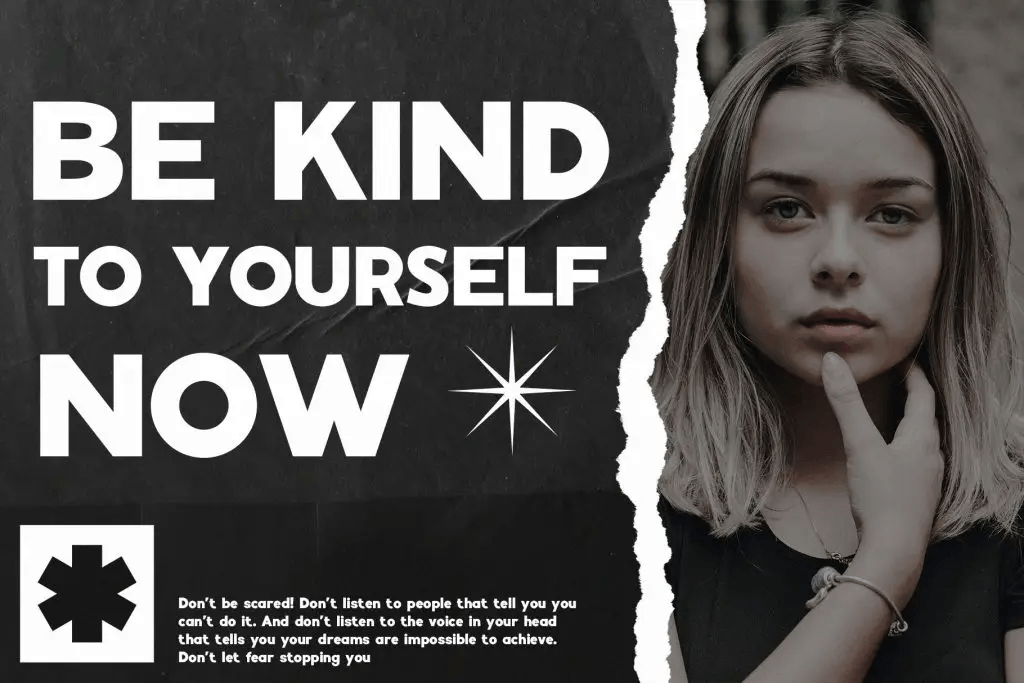
2. Maktron
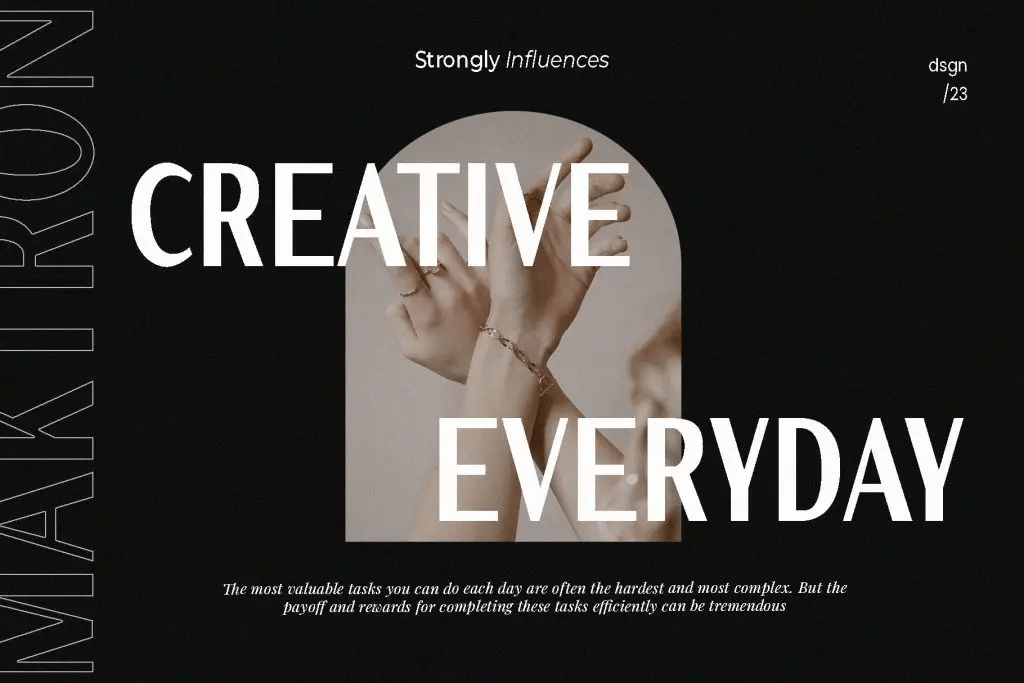
3. Reghita
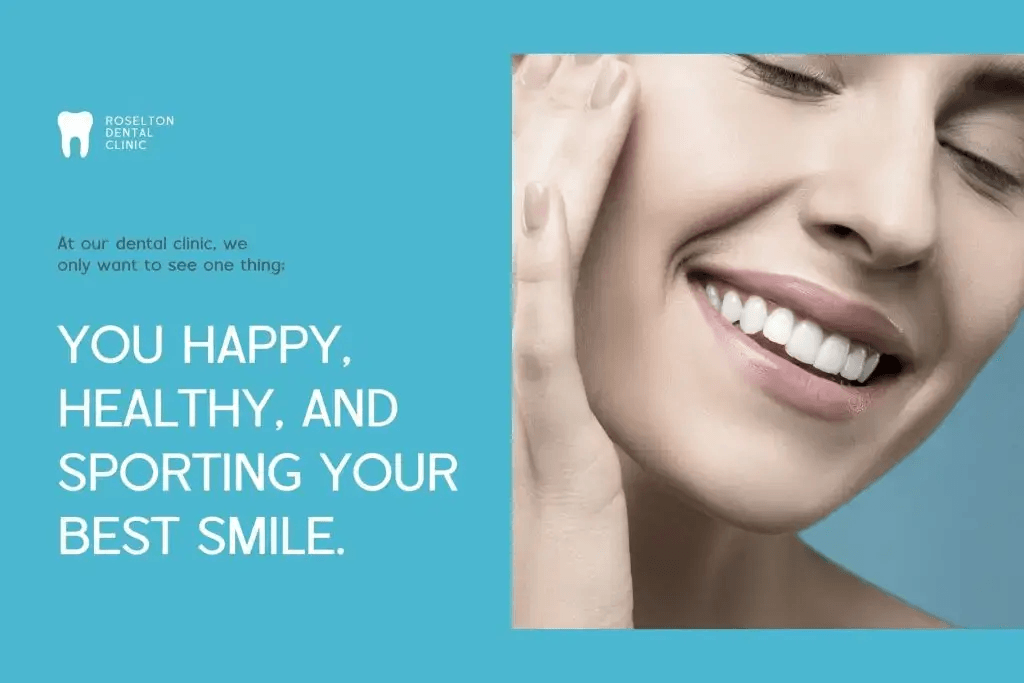
4. Schindler
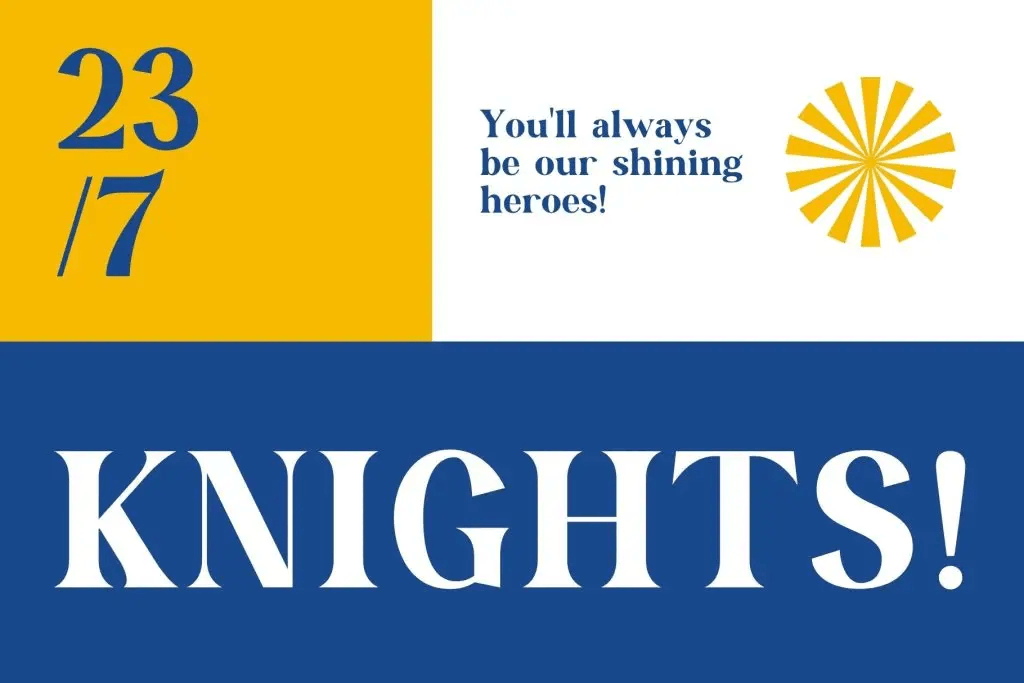
5. Viona Collins
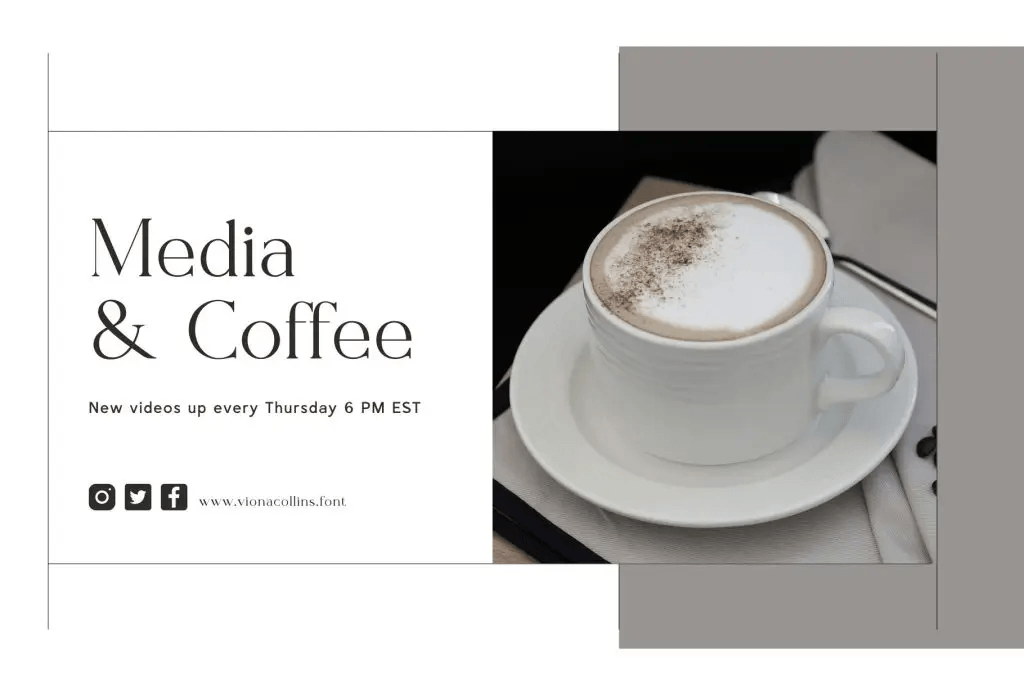
How to Choose the Best Fonts for Business Advertising
Choosing the best fonts for business advertising requires understanding both design principles and marketing goals.
Define Your Brand Personality
Start by identifying the personality of your brand.
Ask yourself:
- Is the brand modern or traditional?
- Is the tone formal or playful?
- Is the product premium or affordable?
The answers will help guide your typography decisions.
Use Font Pairing
Font pairing can create visual contrast and hierarchy in advertisements.
Example pairing:
Heading font → Glibby
Body font → Fagheto
This combination creates a strong visual impact while maintaining readability.
Limit the Number of Fonts
Using too many fonts can make advertisements look cluttered. Most professional advertisements use one or two fonts only. This keeps the design consistent and easy to read.
Consider the Advertising Platform
Different platforms require different typography strategies.
For example:
Social media → bold and eye-catching fonts
Website ads → clean and readable fonts
Print advertising → elegant and distinctive fonts
Always test your typography on the platform where the advertisement will appear.
Final Thoughts
Choosing the best fonts for business advertising is an essential part of building a strong brand identity. Typography influences how customers perceive a brand, understand its message, and remember its visual identity.
Fonts like Flaters, Maktron, Reghita, Schindler, and Viona Collins are widely used in advertising because they combine readability with strong visual impact.
When selecting fonts for advertising, always consider readability, brand personality, and platform compatibility. Consistent typography across all marketing materials helps build trust and recognition.
In today’s competitive marketplace, strong typography can make the difference between an advertisement that is ignored and one that captures attention.